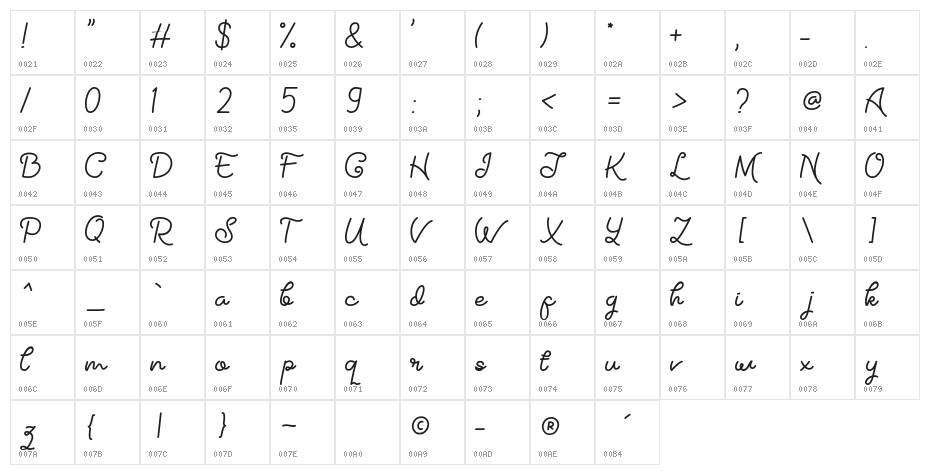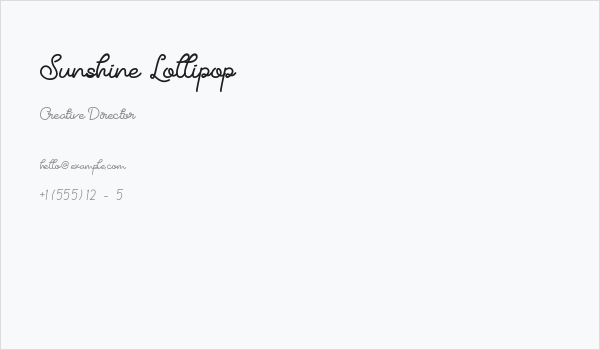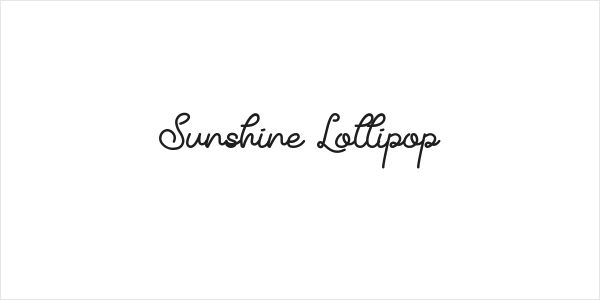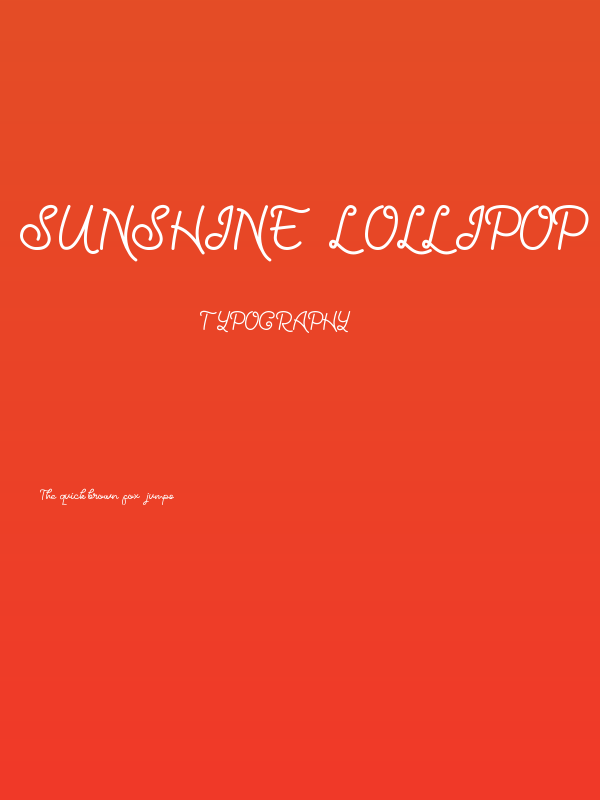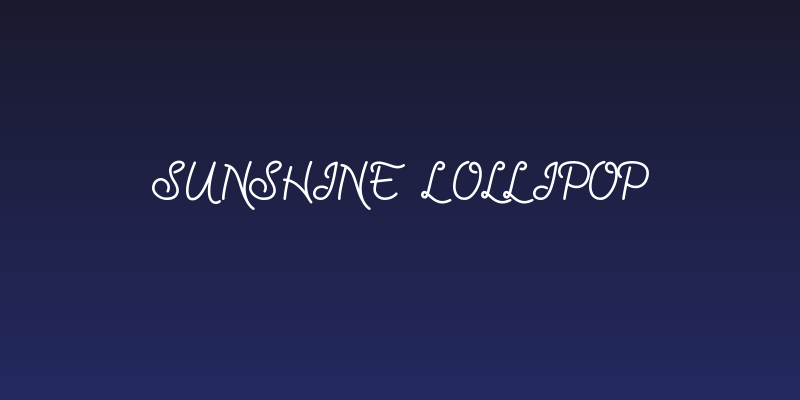
Sunshine Lollipop Font
Sunshine Lollipop Description
This font features a playful and whimsical script style, characterized by its fluid, cursive strokes and rounded letterforms. The uppercase letters are slightly more elaborate, with some featuring subtle loops and swirls, while the lowercase letters maintain a consistent flow, enhancing readability. The numerals are clear and distinct, complementing the overall style. Special characters are well-integrated, maintaining the font's cohesive look. This font exudes a cheerful and friendly vibe, making it suitable for creative and informal applications.
| Proposed Projects | Ideal for greeting cards, children's books, playful branding, and invitations. |